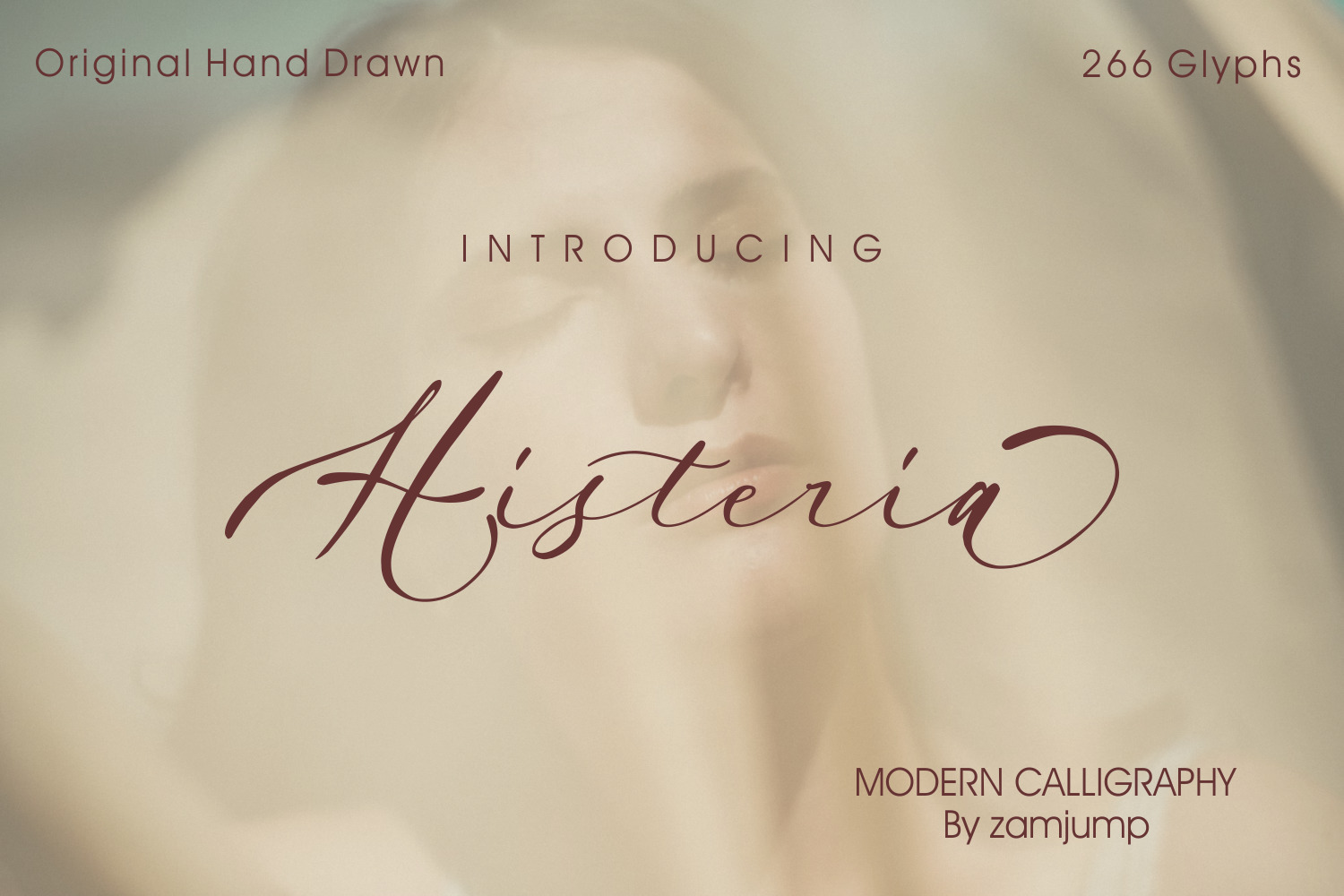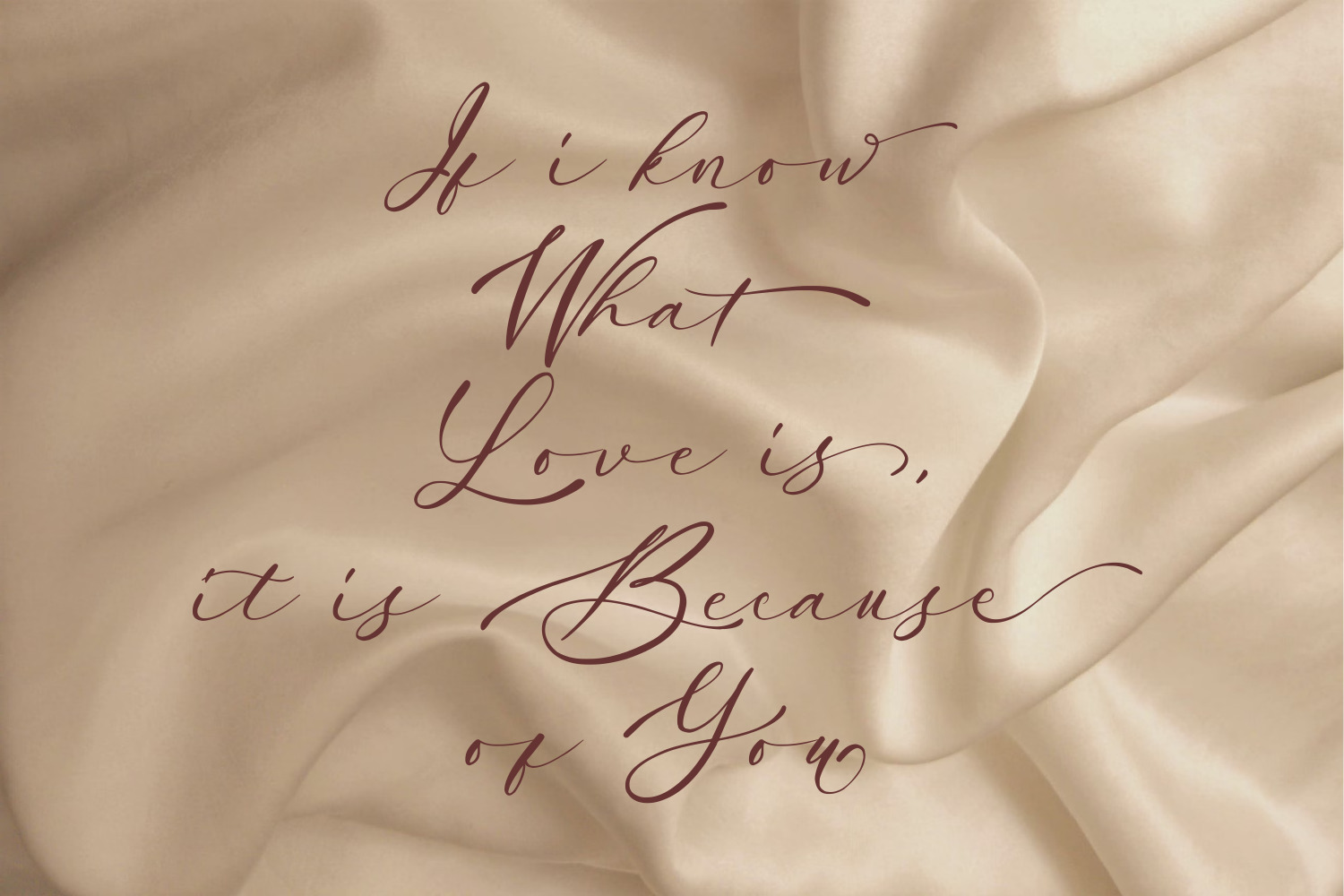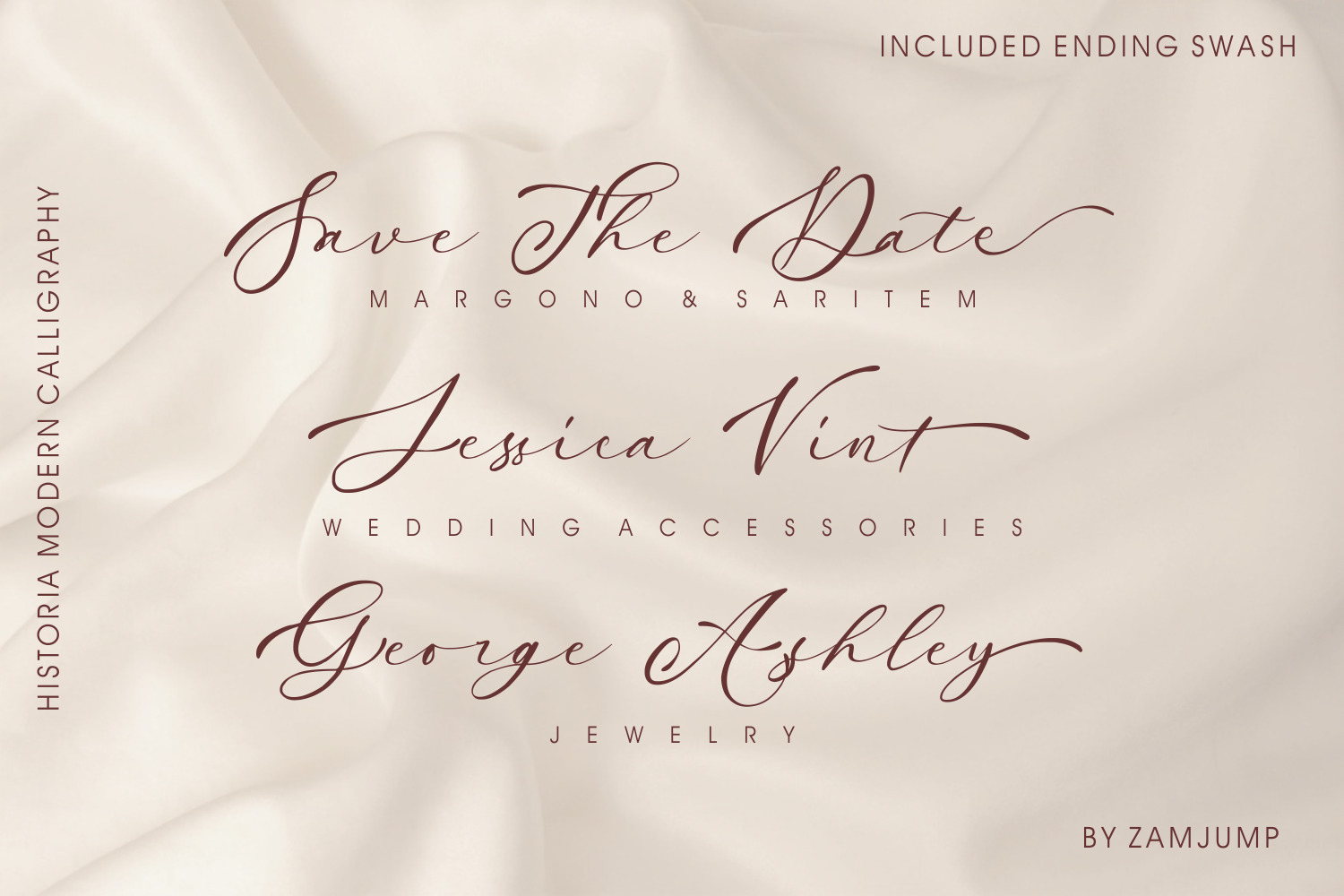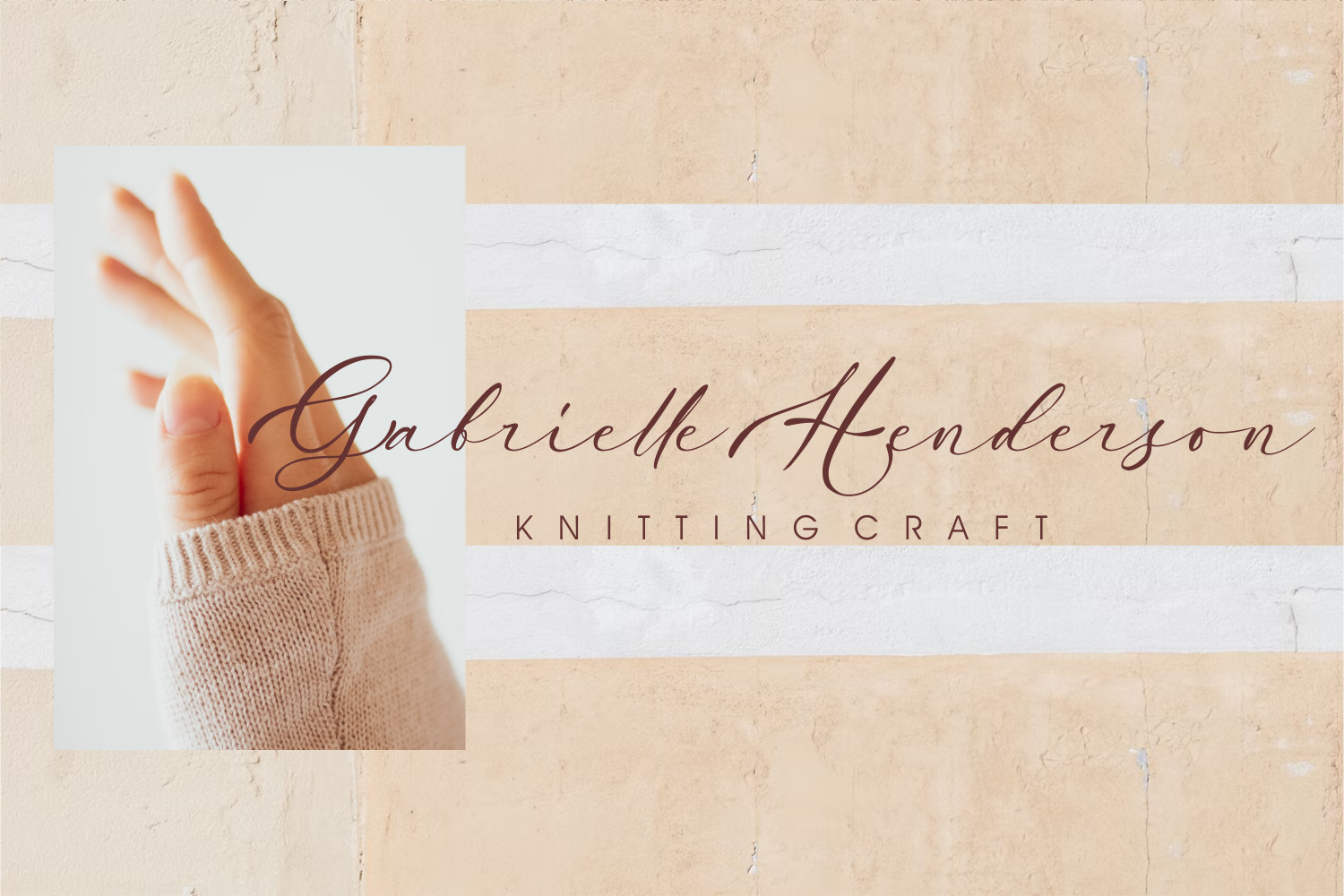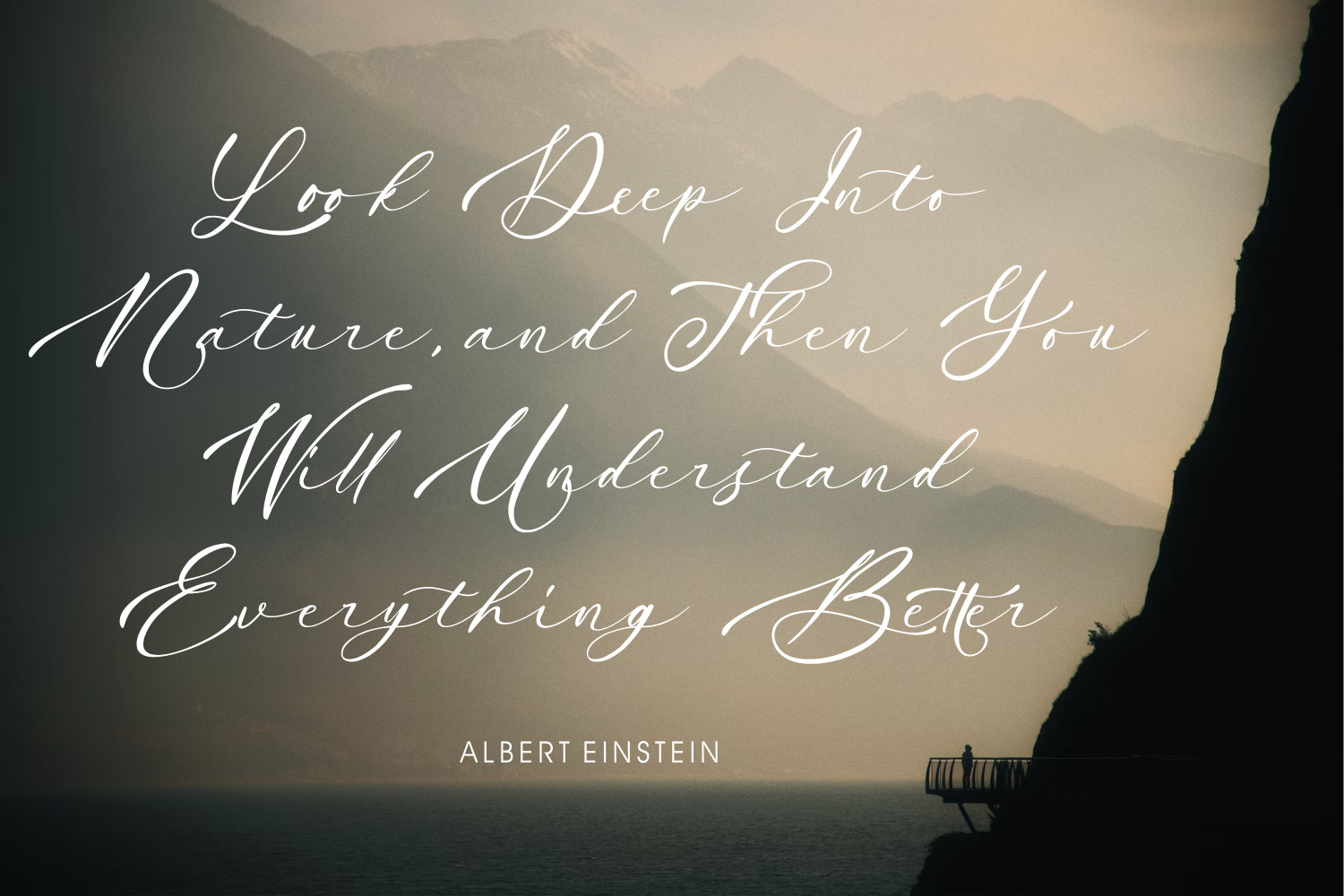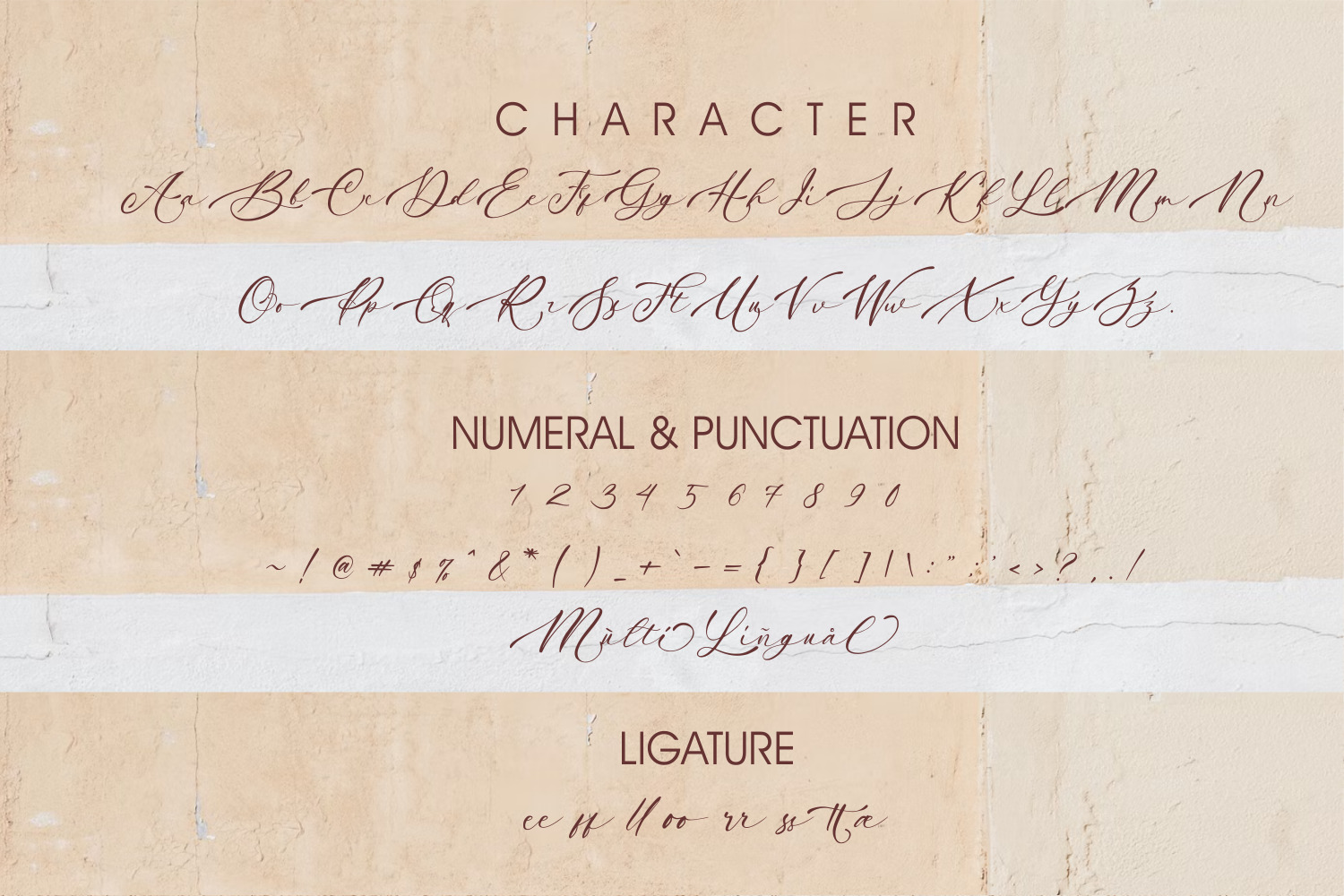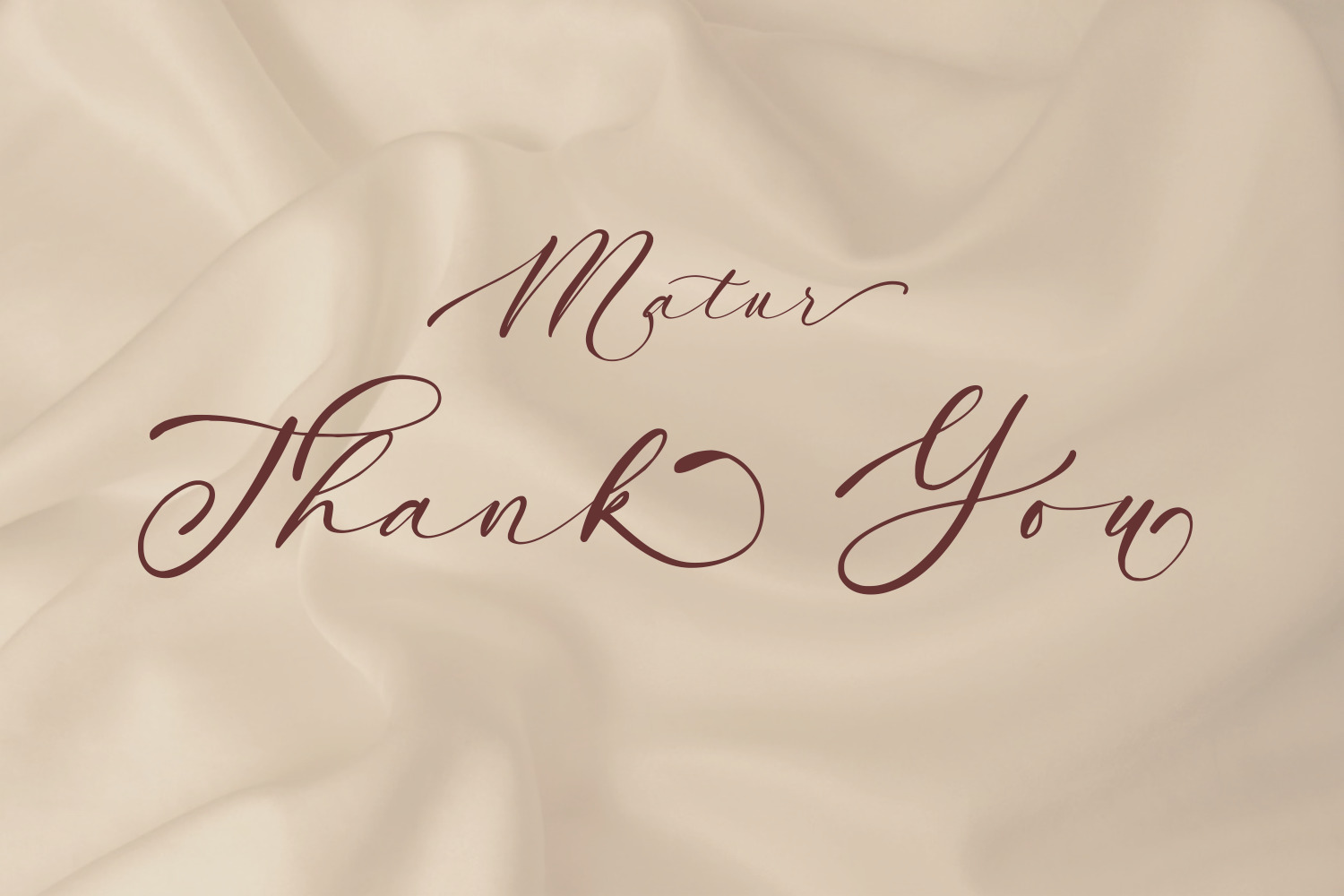
Histeria Font
Introducing the modern calligraphy font, Histeria! Histeria is perfect for elegant logos, high-end packaging, wedding stationery, photography, websites, and any other project that requires a touch of handwriting and luxury. accompanied by an alternative ending swash so you can give your logo or name a special hand calligraphy look.
Histeria Features
Complete Set of standard alphabet and punctuation marks
Additional set of brushed lowercase endings
Ligature
Multilingual Support